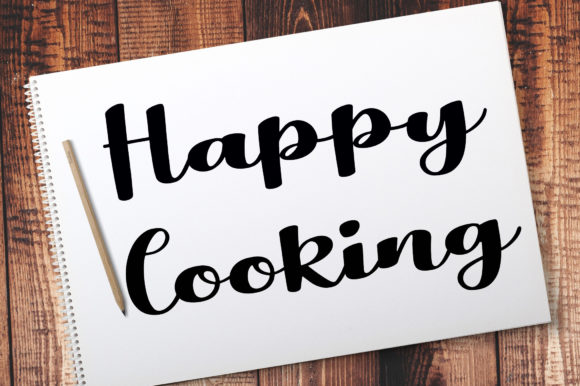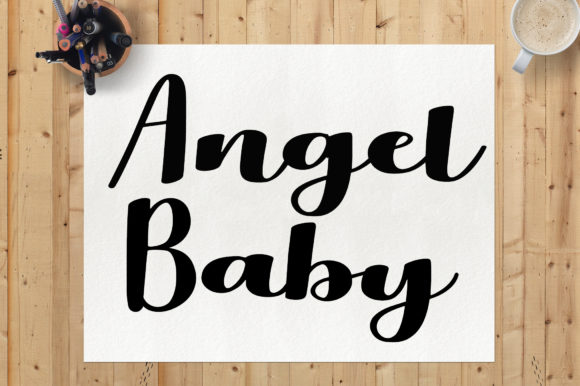
Digital Paper Font
db-ku.com - Script & Handwritten -- Digital Paper is a chic and sweet script font with characters that dance along the baseline. It looks casual and elegant, and it is perfect for various projects such as logos, wedding invitations, headings, t-shirts, letterhead, signage, labels, news, posters, badges, and more.